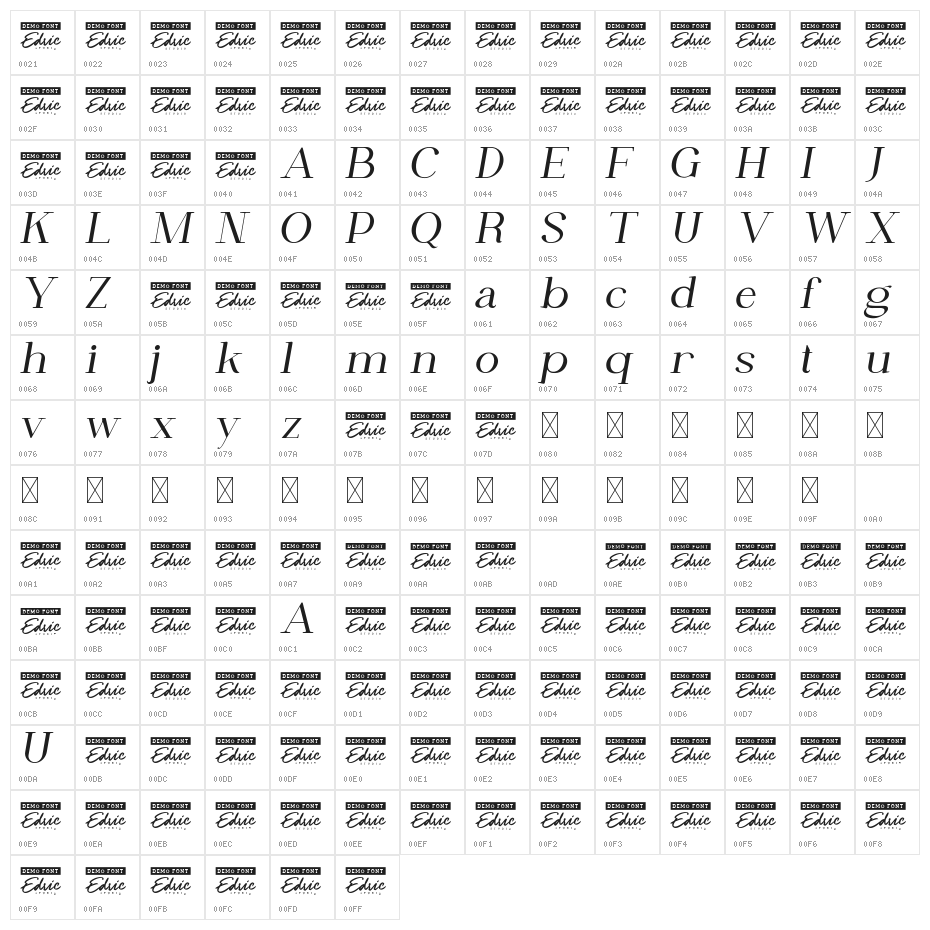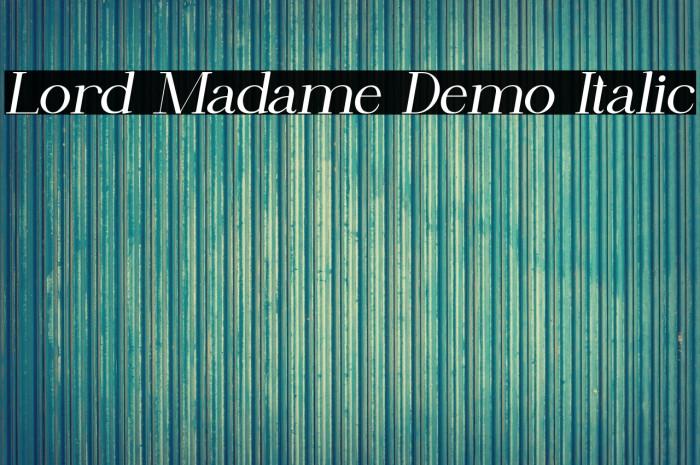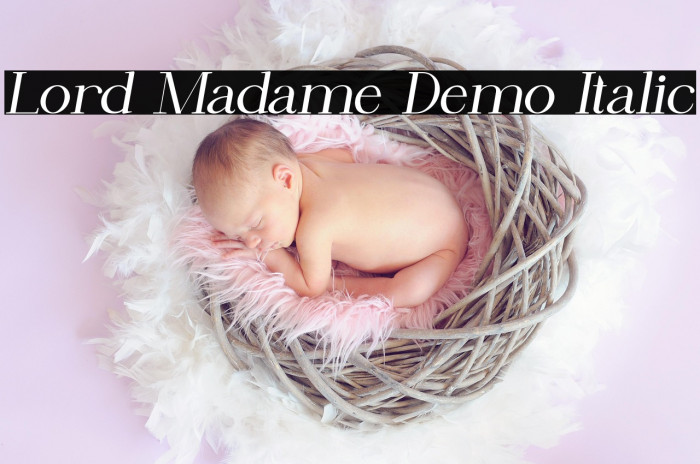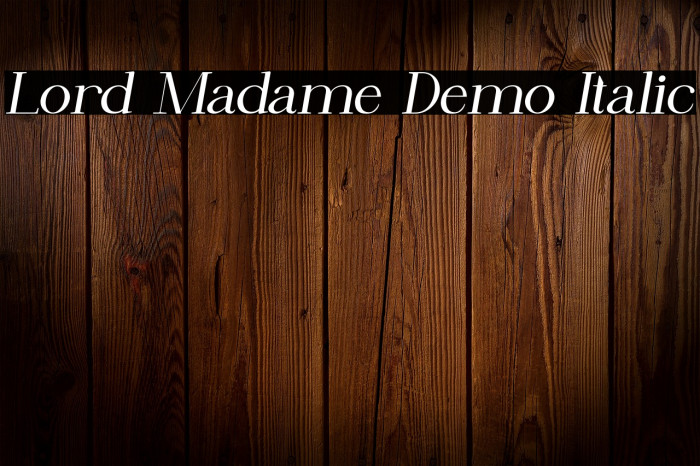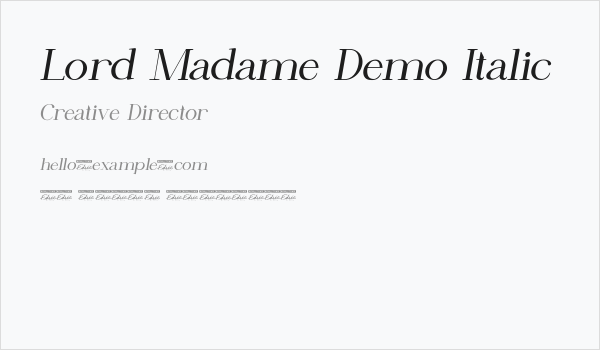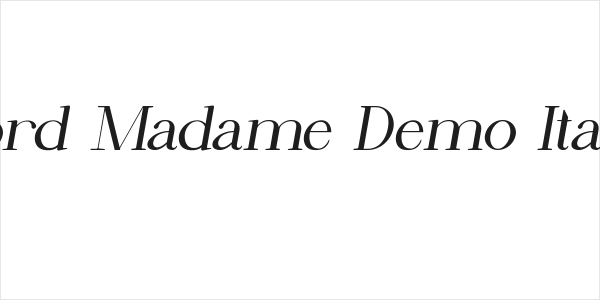
Lord Madame Demo Italic Font
Lord Madame Demo Italic Description
This elegant serif font features a sophisticated italic style, characterized by its graceful and flowing letterforms. The uppercase letters are tall and slightly condensed, providing a sense of refinement and formality. The lowercase letters maintain a consistent slant, enhancing the font's fluidity and elegance. The font exhibits medium contrast, with noticeable variations in stroke thickness that add to its classic appeal. The overall design is balanced, with a harmonious blend of curves and straight lines, making it suitable for a variety of applications where a touch of sophistication is desired.